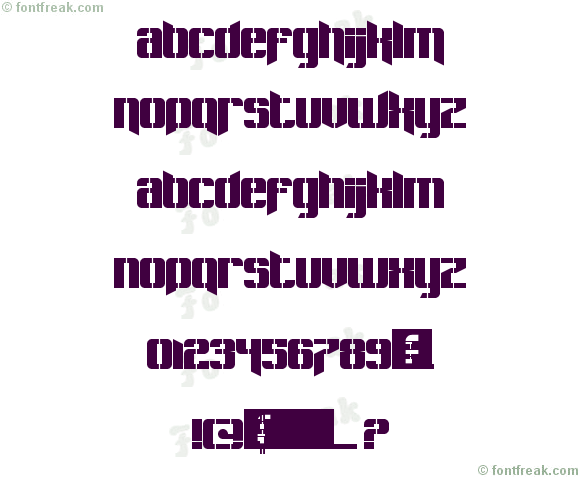
Pastcorps Regular
About Pastcorps Regular
Pastcorps Regular is a striking display font designed by Andrew McCluskey in 2012, categorized within the decorative typeface genre. This font captures attention with its bold, geometric forms and unique character shapes, making it a standout choice for various creative projects. The letterforms exhibit a strong stroke weight and minimal contrast, providing a robust visual presence. The spacing is thoughtfully balanced, ensuring legibility while enhancing the overall aesthetic appeal. Pastcorps Regular features distinct decorative elements that give it an almost industrial feel, making it suitable for modern design themes.
This font is particularly well-suited for use in eye-catching applications such as movie posters, where its boldness can effectively convey drama and excitement. It also excels in branding materials for small businesses looking to make a strong impression, whether on signage or promotional items. Additionally, Pastcorps Regular can elevate restaurant menus by providing a unique flair that complements contemporary culinary themes. For content creators, this font offers a distinctive option for social media graphics and blog headers, allowing for an impactful visual identity.
What truly sets Pastcorps Regular apart is its combination of boldness and creativity, making it perfect for those who want to break away from conventional typefaces. Its unique character shapes and decorative flair provide a fresh look that can enhance any design, ensuring that your message is not only seen but truly remembered. For anyone interested, the Pastcorps Regular font free download is available, inviting exploration of its unique potential.